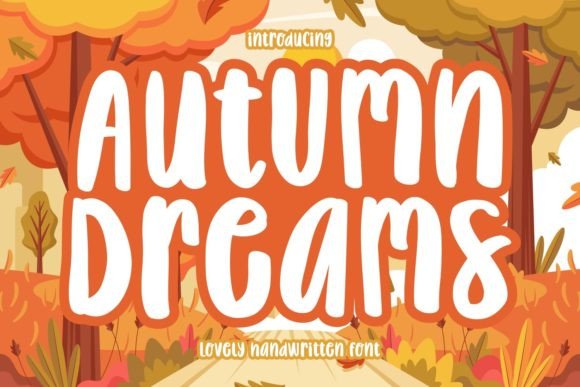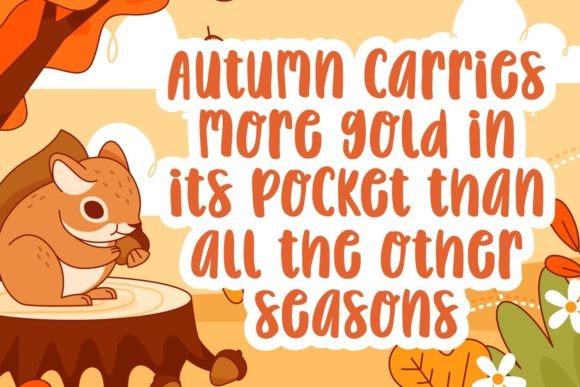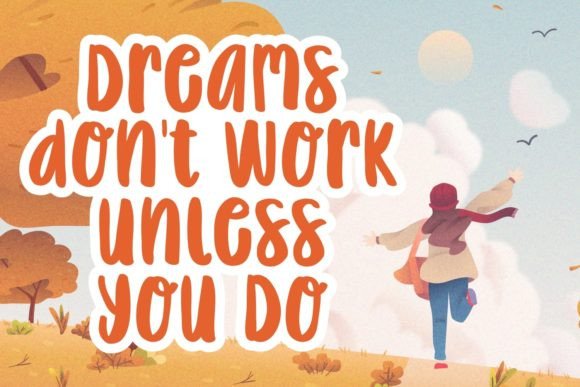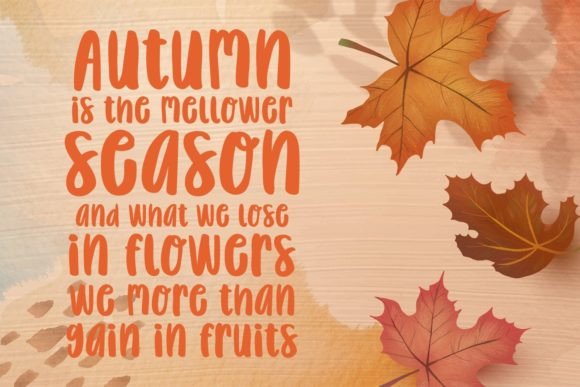
About Autumn Dreams Font
“Autumn Dreams” is more than just a font; it’s a delightful journey into a world of cuteness and loveliness. Crafted with a modern yet whimsical style, this handwritten font has the power to immerse your designs in a magical atmosphere, creating an enchanting visual experience.
The charm of “Autumn Dreams” lies in its cuteness and loveliness. Each character is carefully designed to evoke a sense of warmth and friendliness, making it a perfect choice for projects that aim to convey a light and endearing tone.
The modern yet whimsical style of the font adds a contemporary touch to its overall design. This blend of modernity and whimsy makes “Autumn Dreams” a versatile choice that can adapt to various design contexts, whether you’re working on social media graphics, branding materials, or any other creative project.
Incorporating “Autumn Dreams” into your designs is akin to infusing them with a touch of magic. The font becomes a visual storyteller, transforming ordinary text into an expression of charm and wonder. Its handwritten quality contributes to the authentic and organic feel, making it a delightful choice for designs that seek to create a connection with the audience.
Whether your project is related to autumn themes or not, “Autumn Dreams” brings a sense of coziness and enchantment. The font becomes a wonderful asset for invitations, stationery, posters, and any other design endeavor where a cute and lovely aesthetic is desired.
In conclusion, “Autumn Dreams” is a font that transcends mere typography; it’s a design tool that invites you to immerse your creations into a magical world of cuteness and loveliness. By embracing this font, you’re not just adding characters to your designs; you’re infusing them with a touch of whimsy and modern charm, creating a visual experience that captivates and delights.